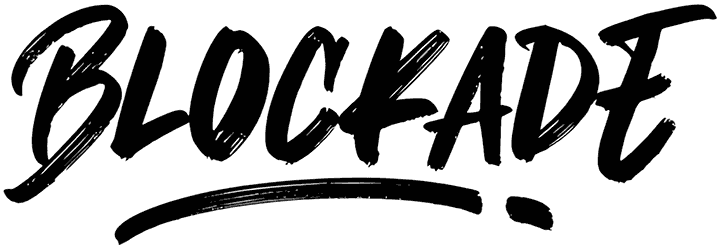
Blockade Font
Blockade is a modern, trendy, and sturdy script font that comes with crooked and tilted characters. Due to its angular style, this all-caps script font can turn any casual content, such as animation posters, flyers, bann…
Blockade is a modern, trendy, and sturdy script font that comes with crooked and tilted characters. Due to its angular style, this all-caps script font can turn any casual content, such as animation posters, flyers, banner ads, or video game brochures, into a timeless masterpiece. This point must be mentioned that this brush font comes with a feeling of dynamism, genius, and vitality.